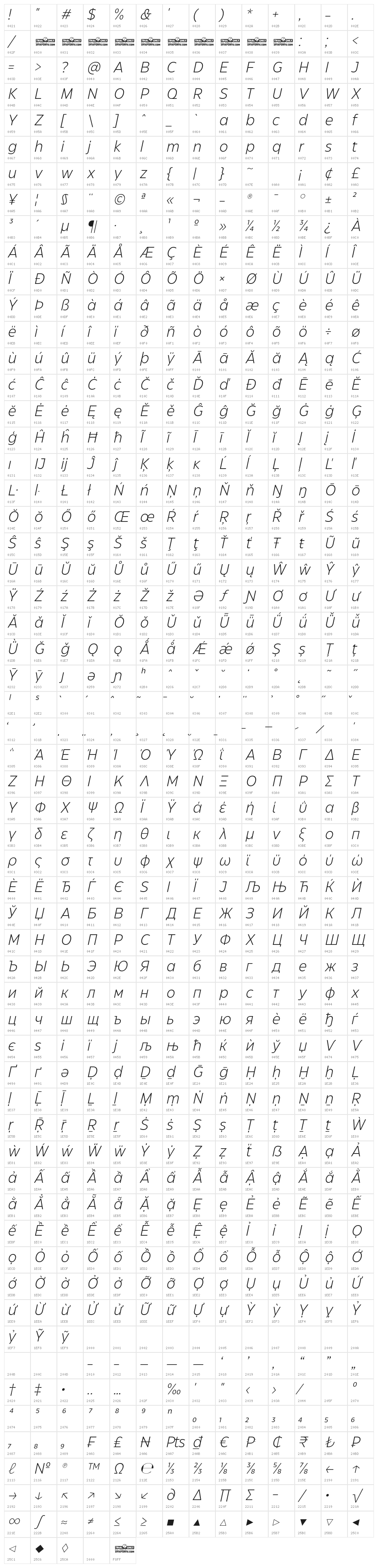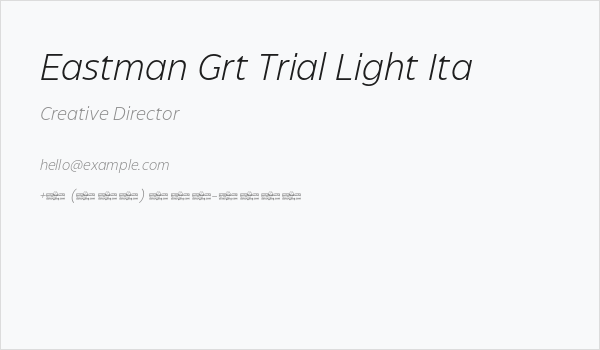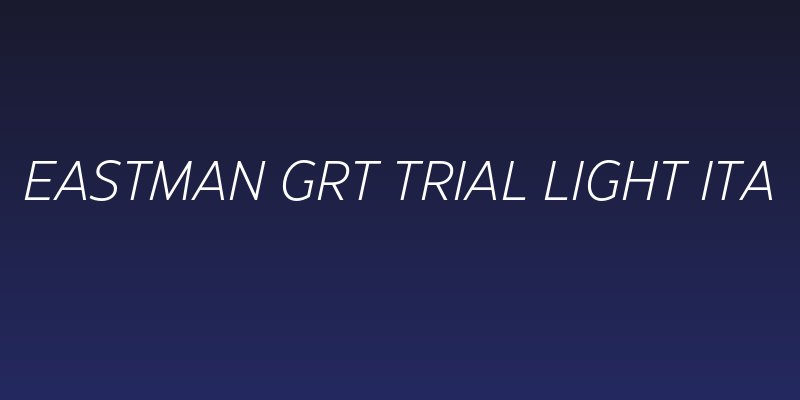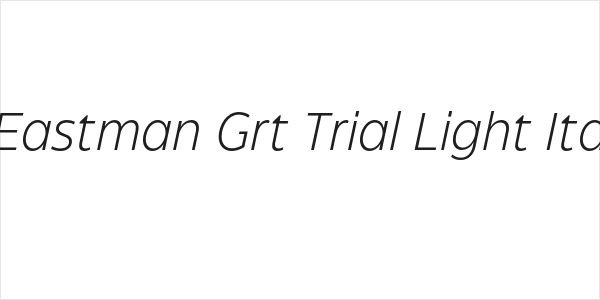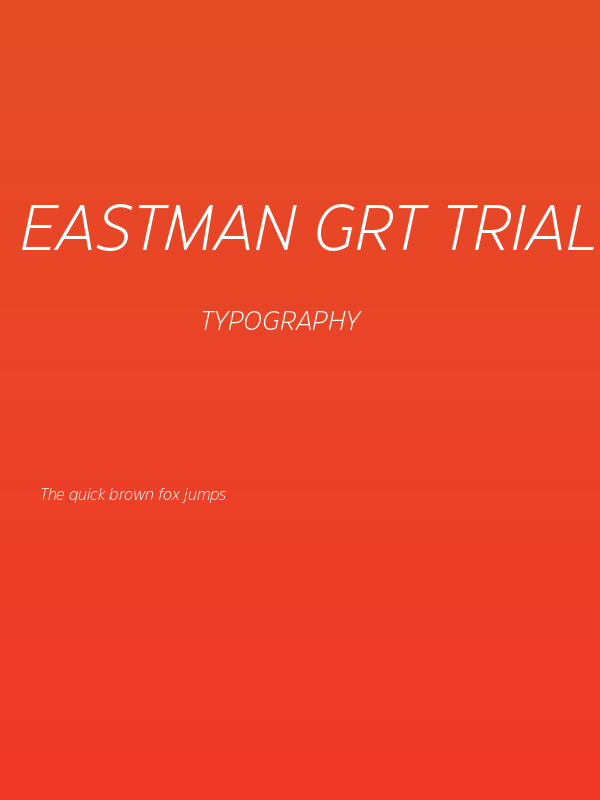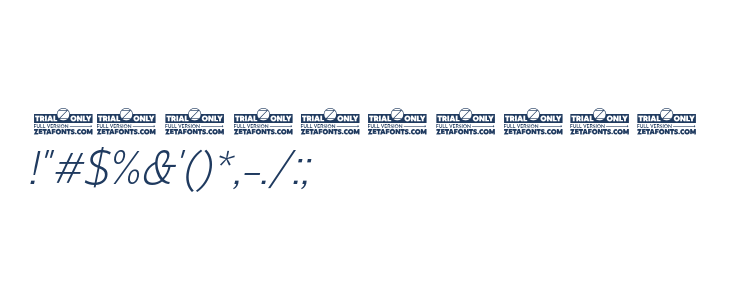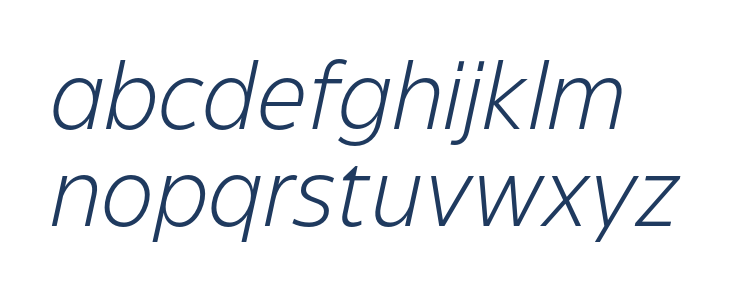
Eastman Grt Trial Light Ita Font
Eastman Grt Trial Light Ita Description
This font features a sleek, modern design with a light weight and italic style. The characters are elegantly crafted with smooth curves and a slight slant, giving it a dynamic and sophisticated appearance. The uppercase and lowercase letters maintain a consistent style, with a uniform stroke width that enhances readability. The numerals and special characters are designed to complement the alphabet, maintaining the overall aesthetic. The font's clean lines and minimalistic approach make it versatile for various design applications.
| Proposed Projects | Ideal for branding, editorial design, digital interfaces, and advertising materials. |